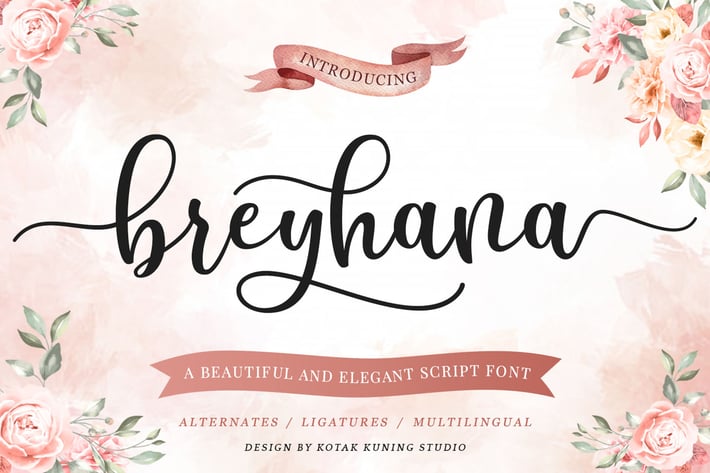
Breyhana - Romantic Script Font
Breyhana is a handwritten script with a natural & stylish flow. This font has a multitude of natural-looking ligatures in its OpenType features - making the font look as close to natural handwriting as possible. This collection of scripts is perfect for personal branding.
Breyhana Font is perfect for many different projects such as logos & branding, invitation, stationery, wedding designs, social media posts, advertisements, product packaging, product designs, label, photography, watermark, special events, or anything.